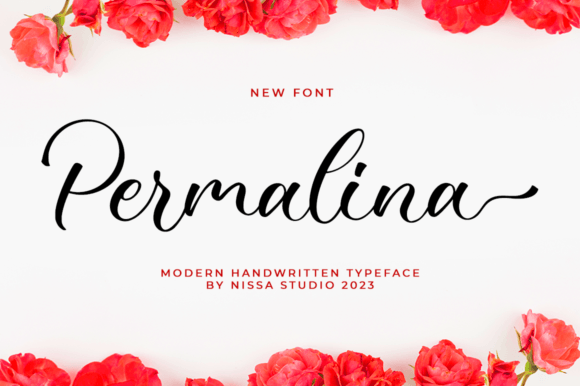
Step into the enchanting world of Permalina, a script font that will captivate your heart with its delicate strokes and timeless elegance. Immerse yourself in the beauty of handwritten letters, meticulously crafted to evoke a sense of sophistication and charm.
Unleash your creativity and let your words dance across the page with Permalina. Whether you're crafting love letters, designing wedding invitations, or creating heartfelt social media posts, this font will add a touch of elegance and romance to every project. Experience the joy of writing with a font that speaks to your soul.
With Permalina, you'll discover a font that's as versatile as it is beautiful. Its flowing lines and graceful curves lend themselves perfectly to a wide range of design projects. From branding and logos to packaging and websites, Permalina will elevate your designs with its timeless appeal.
Permalina is more than just a font; it's an expression of art that captures the essence of love and connection. Its delicate strokes and charming swashes will add a personal touch to your designs, making them stand out from the crowd.
With Permalina, you'll experience the joy of creating designs that resonate with your audience. Its versatility and timeless beauty will make it your go-to font for all your creative endeavors. Embrace the magic of Permalina and let your words bloom with elegance and grace.